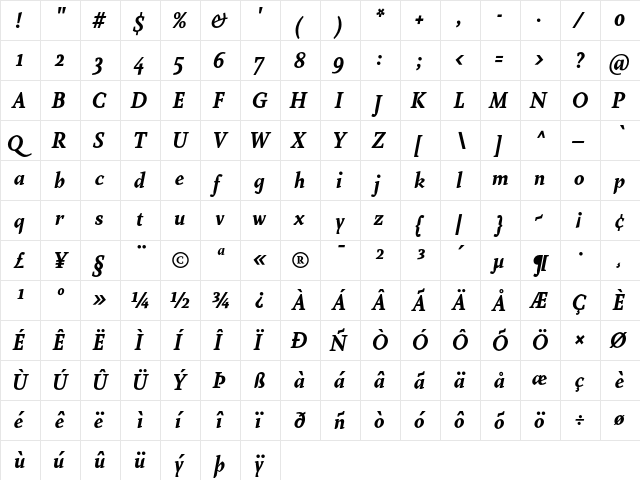
Farrerons Serif Bold Italic Font Preview
| Foundry | Josep Patau Bellart |
| Designer | Josep Patau Bellart |
Design Context for Farrerons Serif Typeface
Farrerons Serif carries the refined structure of traditional serif typography, with bracketed terminals and considered proportions that communicate credibility and craft. The slanted form adds forward momentum and visual energy. The heavy weight commands attention and anchors typographic hierarchies.
Pro Tip: Use Farrerons Serif for editorial body copy and considered headline work. Pair with a neutral sans for UI elements or captions to create a classic hierarchy.